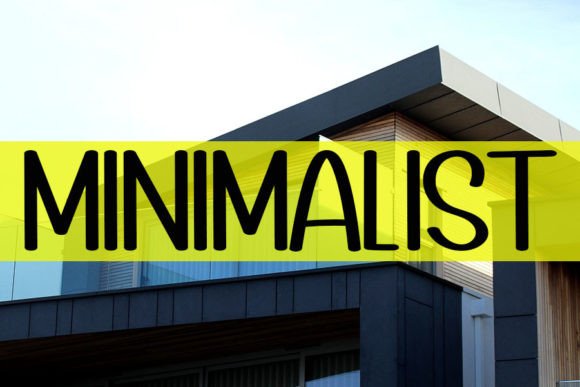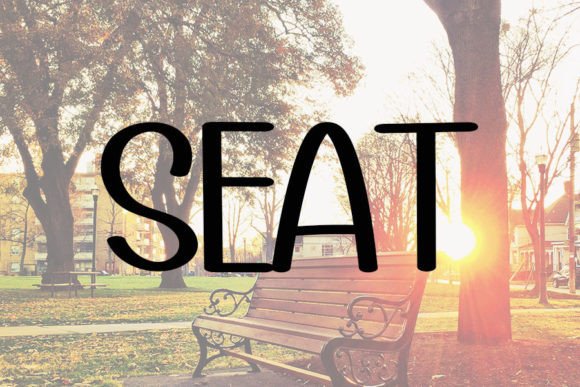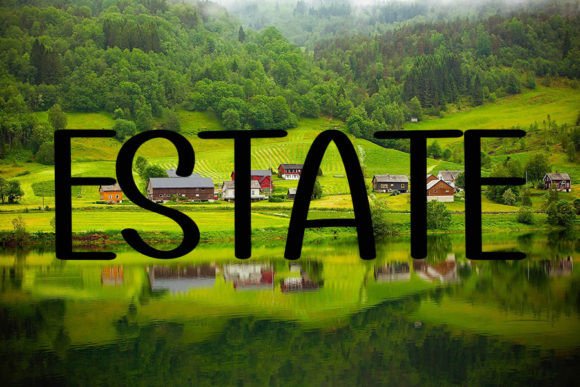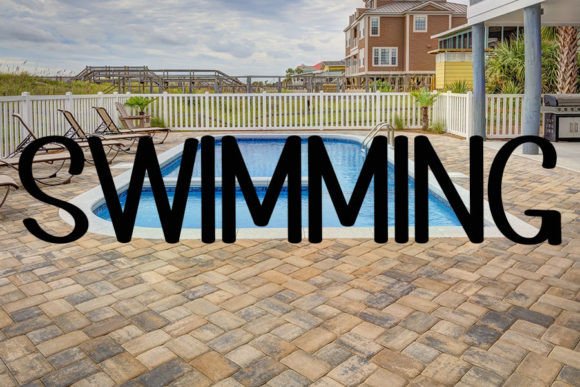
Introduction to Minihouse Font
Have you ever stumbled upon the perfect font while working on a creative project, only to find yourself obsessing over the way it makes your design come alive? For many designers, this is a familiar feeling, and it’s one that can spark hours of brainstorming and experimentation. I recall a time when I fell in love with the Minihouse Font, and its elegant touch completely transformed the look of my project.
As a valuable design resource, the Minihouse Font offers a high-quality, handwritten style that’s perfect for a wide range of creative projects. Its unique, timeless design makes it an excellent choice for designers looking to add a personal touch to their work. With a transparent background, this font can be easily integrated into any design, making it a must-have for anyone seeking to elevate their design game.
Key Features of Minihouse Font
- High-quality, vector-based design with a transparent background, ideal for creative projects.
- Perfect for use in digital design, graphic design, and print design, thanks to its versatility and high resolution.
- Designed to be compact and stylish, with a unique aesthetic that sets it apart from other fonts.
- Easy to customize and modify, making it a valuable design resource for creatives.
- Part of a larger font family, offering a range of styles and weights to choose from.
Honest Review: Minihouse Font
As a designer, I’m always on the lookout for unique and high-quality design resources to elevate my creative projects. The Minihouse Font caught my attention, and I decided to give it a try.
Here are some things that work well with the Minihouse Font:
- ✨ Unique design: The Minihouse Font has a distinctive and quirky feel to it, making it perfect for designers who want to add a touch of personality to their work.
- ✨ High-quality: The font is well-crafted and has a crisp, clean appearance, even at small font sizes.
- ✨ Transparent background: This feature allows designers to easily combine the font with other design elements, creating a seamless and professional look.
- ⚠️ Limited character set: The Minihouse Font only includes a limited set of characters, which may not be suitable for designers who need a font with a full range of characters.
- ⚠️ Not suitable for body text: Due to its unique design, the Minihouse Font is better suited for headings and titles rather than body text.
Overall, the Minihouse Font is a great addition to any designer’s toolkit, especially for creative projects that require a unique and eye-catching font. While it may have some limitations, its high-quality design and transparent background make it a valuable resource for designers who want to add a touch of personality to their work.
The Minihouse Font is a high-quality design resource ideal for creative projects. It offers a transparent background, making it easy to use in various design applications.
Use the Minihouse Font in conjunction with other high-quality design elements to create visually appealing graphics. Experiment with different font sizes, colors, and styles to find the perfect combination for your project.
The Minihouse Font is ideal for use in logos, branding materials, and other design elements where a clean, modern look is desired. Its transparent background makes it easy to use in various design applications, from print materials to digital graphics.